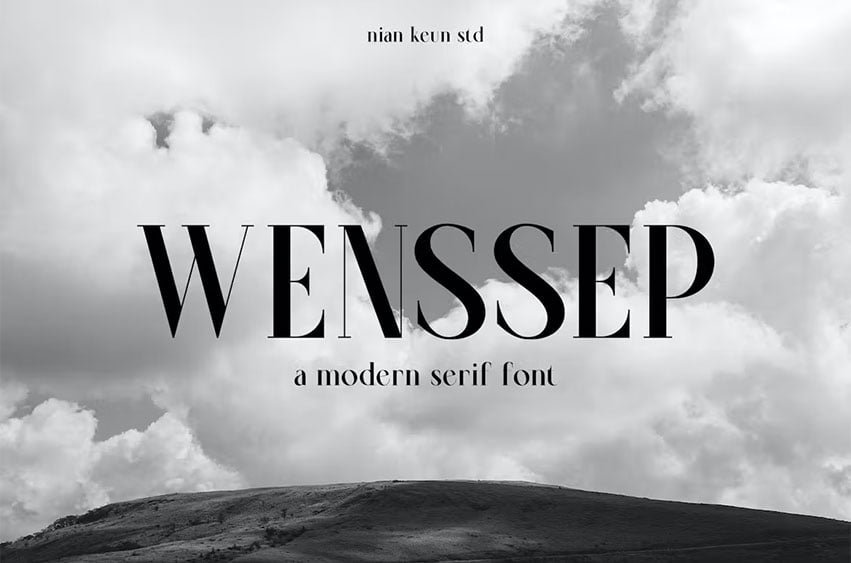
Wenssep Font is a font with a character that is elegantly made for those of you who like fonts with luxury with a firm and neat wrapping. This font will make your designs have more value than you have, In particular, you can use this font in logos, graphic designs, magazines, identity branding, and many others.